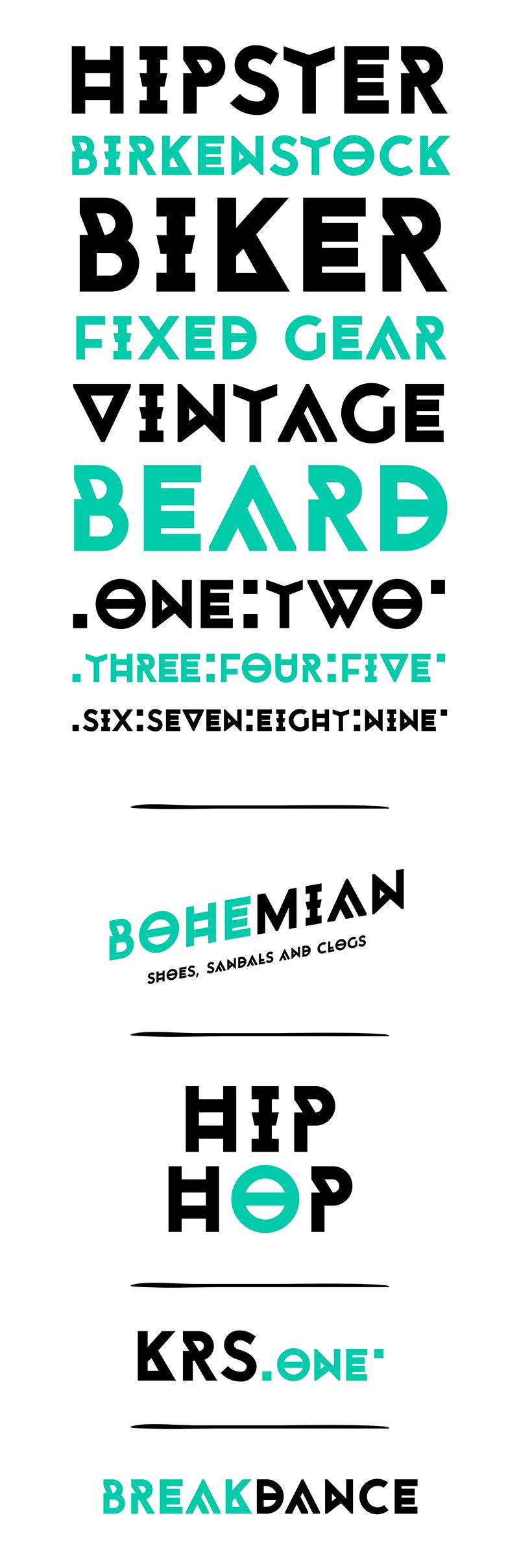
Monohypster is a captivating display font that reflects the eclectic charm of the modern hipster aesthetic. Designed by Andrea Cerboneschi for Monocromo, this font effortlessly blends unconventional shapes with a distinct personal touch.
Its unique character is evident in the juxtaposition of sharp edges and organic curves, creating a visually striking balance. Monohypster's versatility shines through, making it a compelling choice for a range of design applications, from eye-catching headlines to impactful branding.
This font's ability to convey a sense of individuality and artistry makes it a compelling option for designers seeking to elevate their projects with a touch of contemporary flair.
It is a declared Display Font that only has Uppercase letters but comes with a lot of diacritics to obtain different effects, essential punctuation and two kind of numerals: ENG ITA.